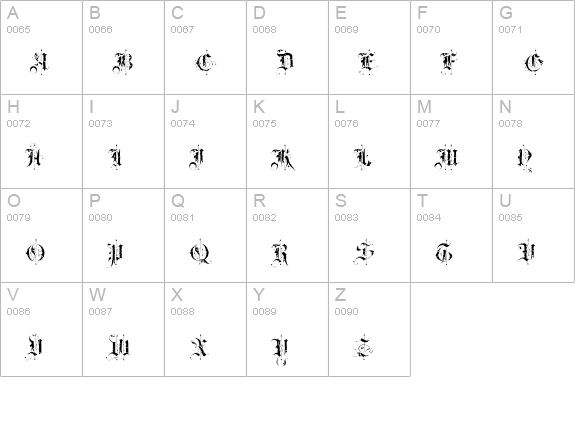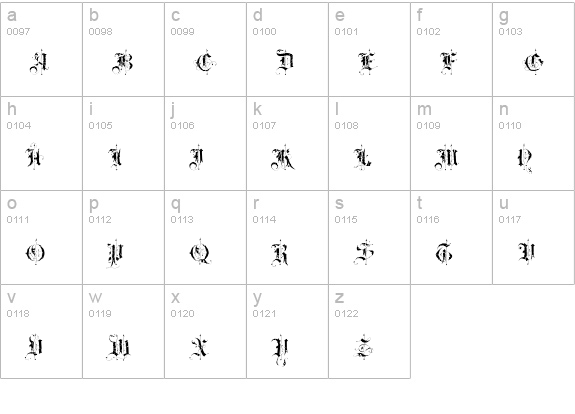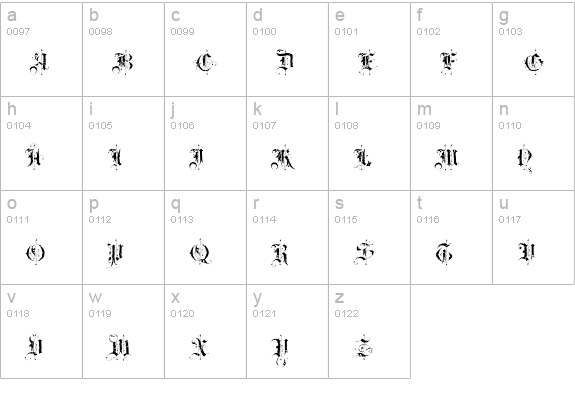
BLAQ Crashed Font Details
BLAQ Crashed font is a bold and edgy typeface that exudes a sense of modernity and uniqueness. Its striking design features sharp, angular lines and a distinctive distressed effect, giving it a rebellious and energetic vibe. This font is perfect for projects that require a touch of attitude and style. Best of all, BLAQ Crashed font is available for free download at FontsMarket.com, making it easily accessible to all designers and creatives looking to add a touch of boldness to their work. Whether you're working on a poster, logo, or website design, BLAQ Crashed font will make a statement and leave a lasting impression. Download it today and unleash your creativity with this cutting-edge typeface.